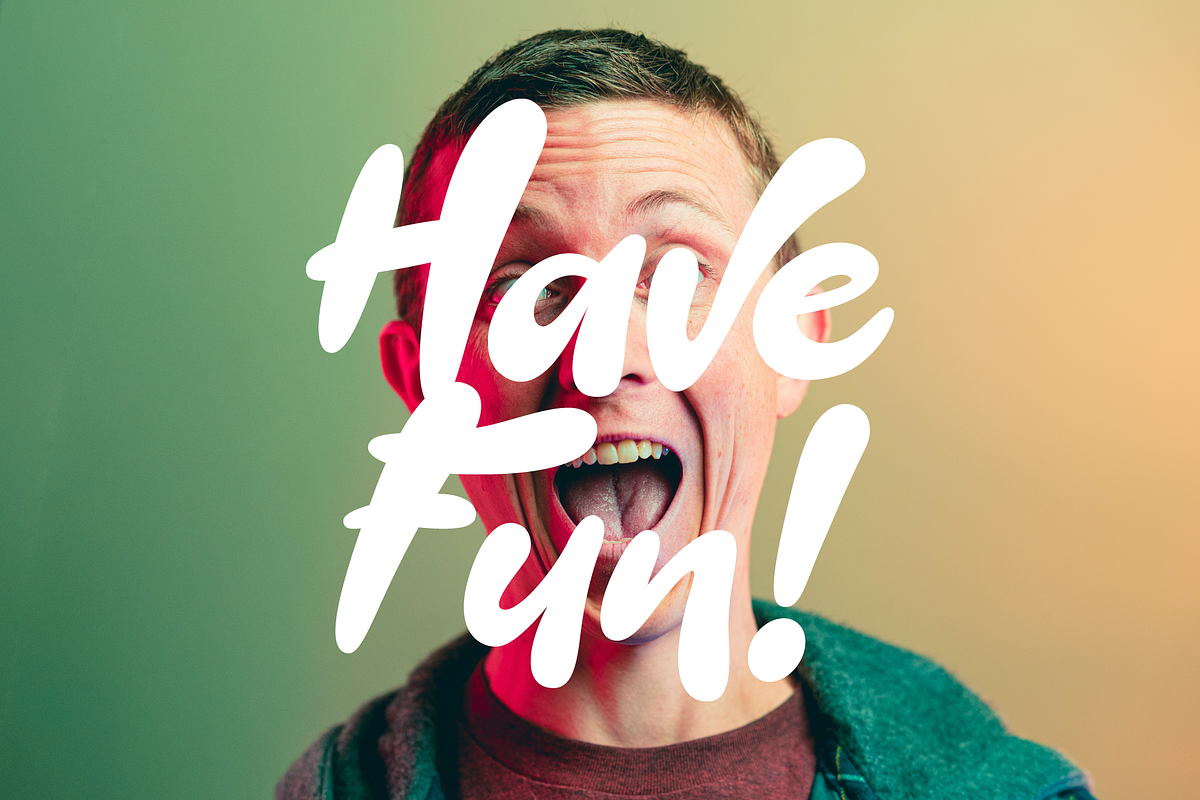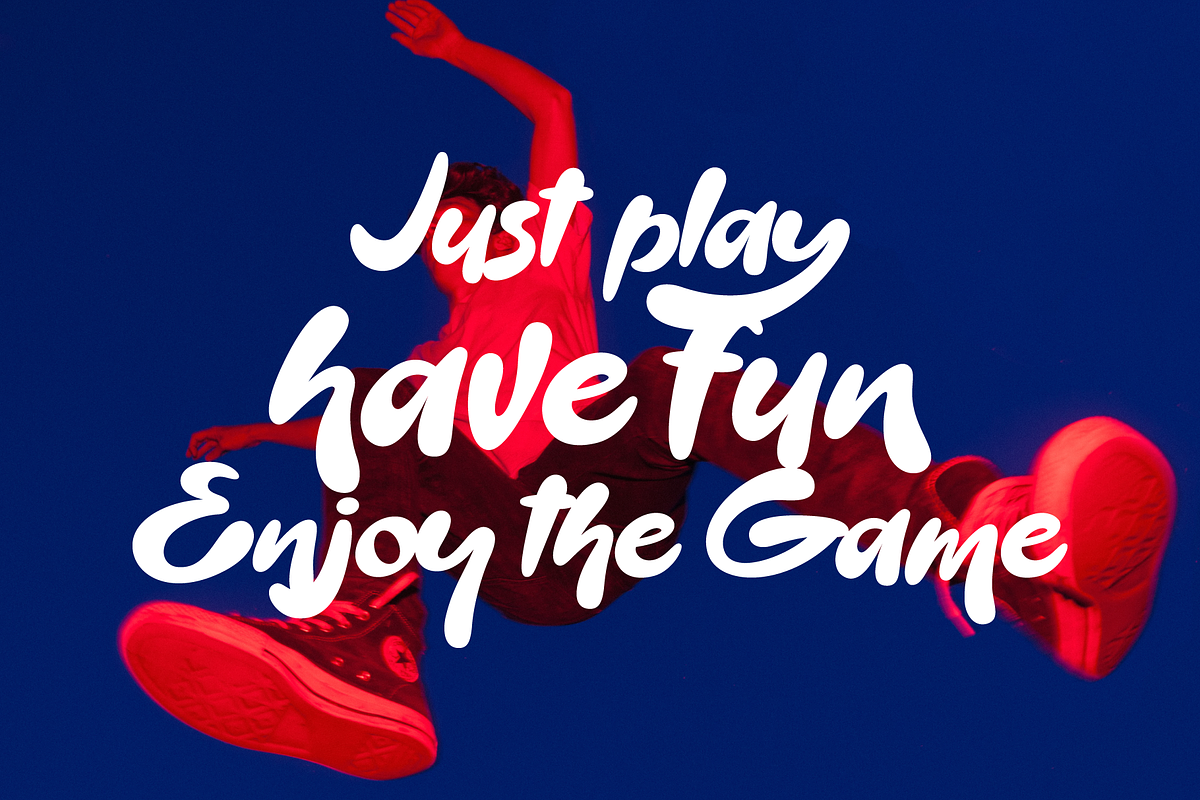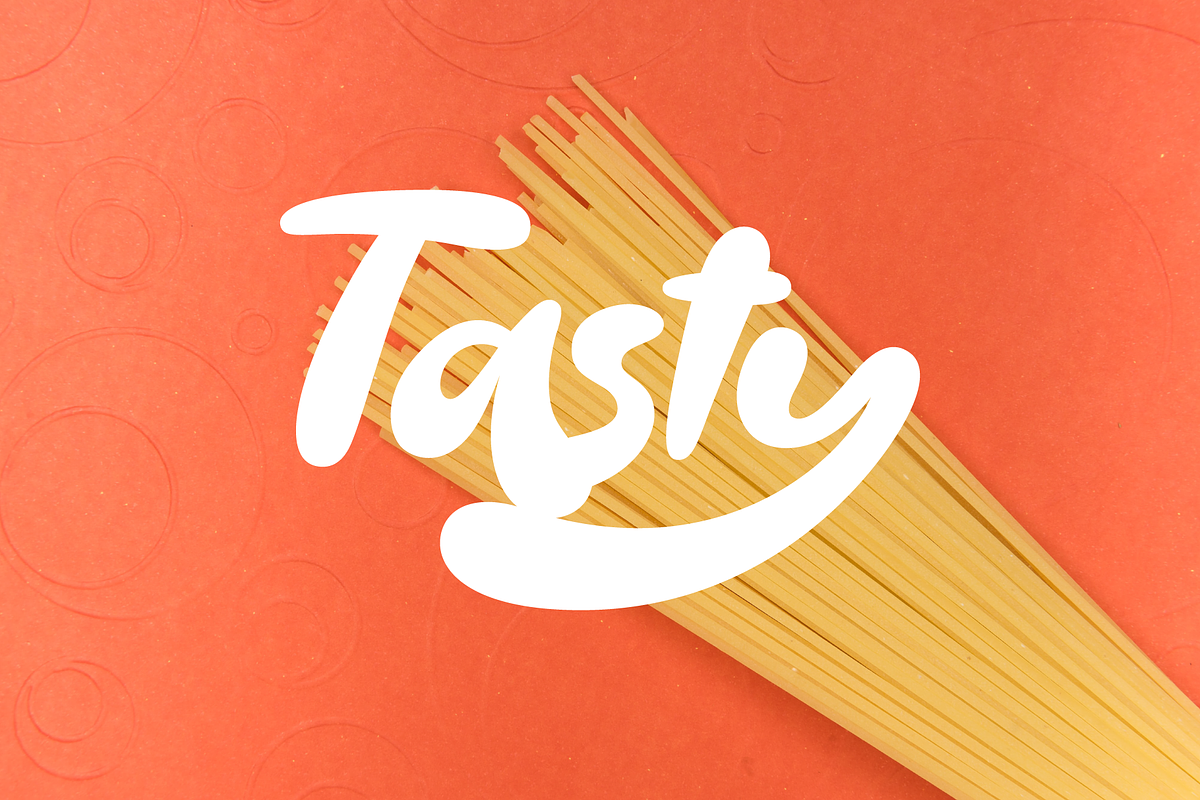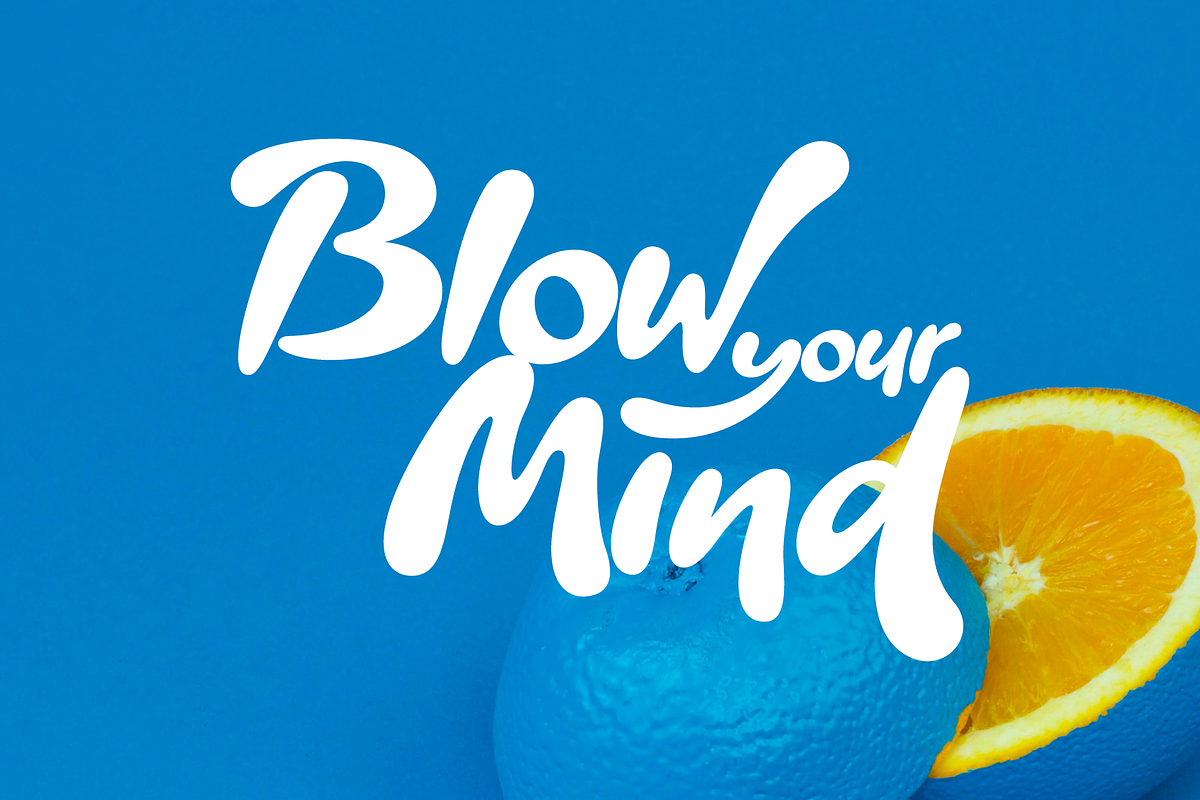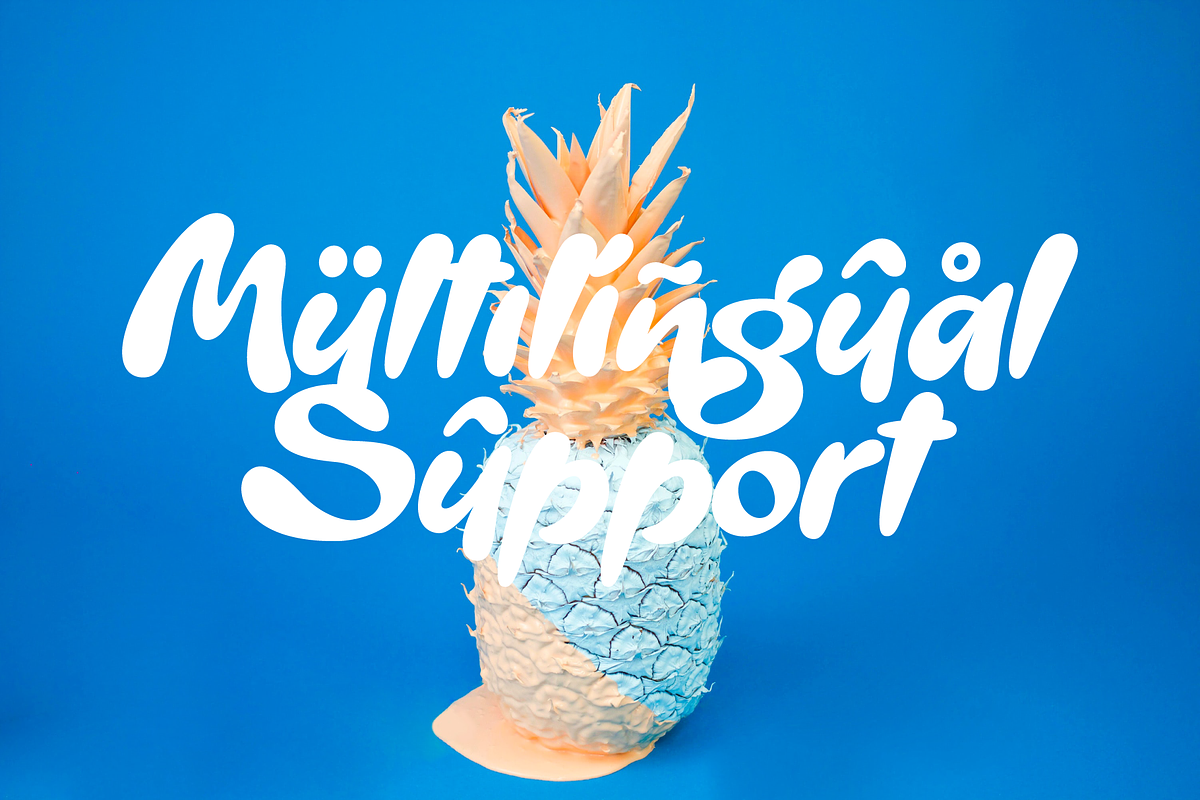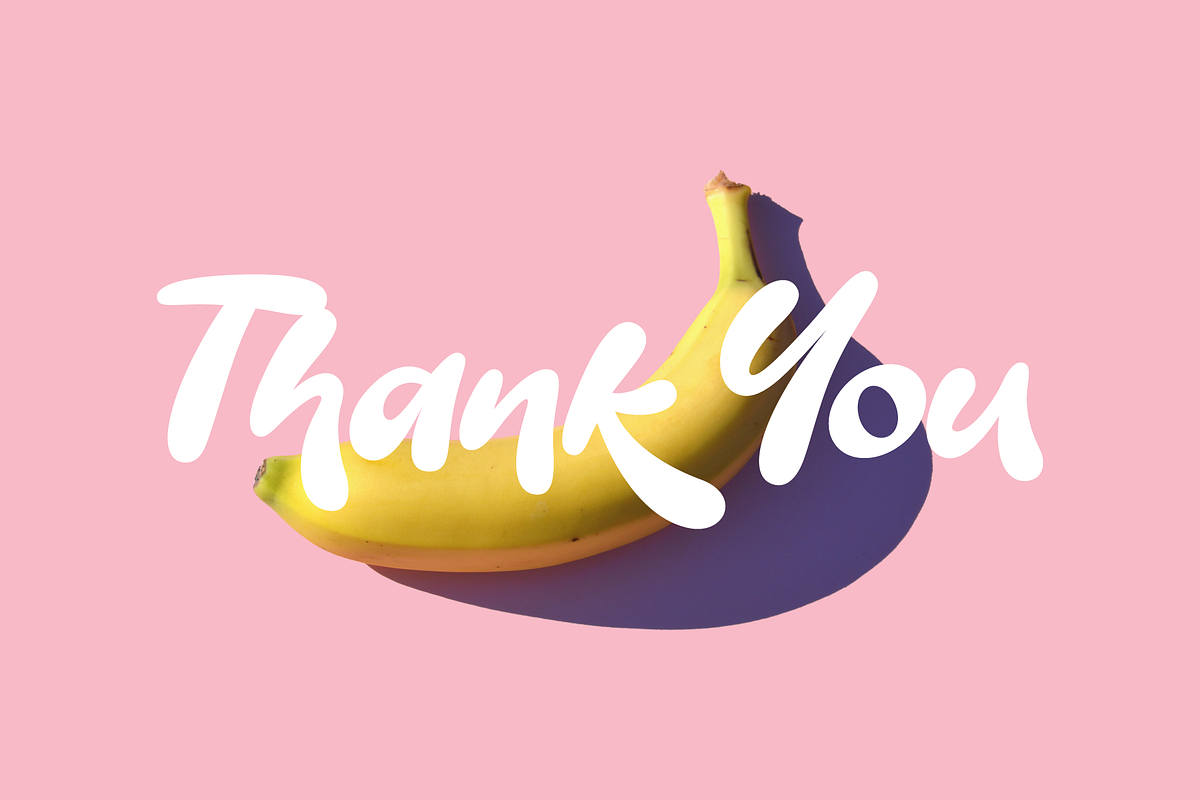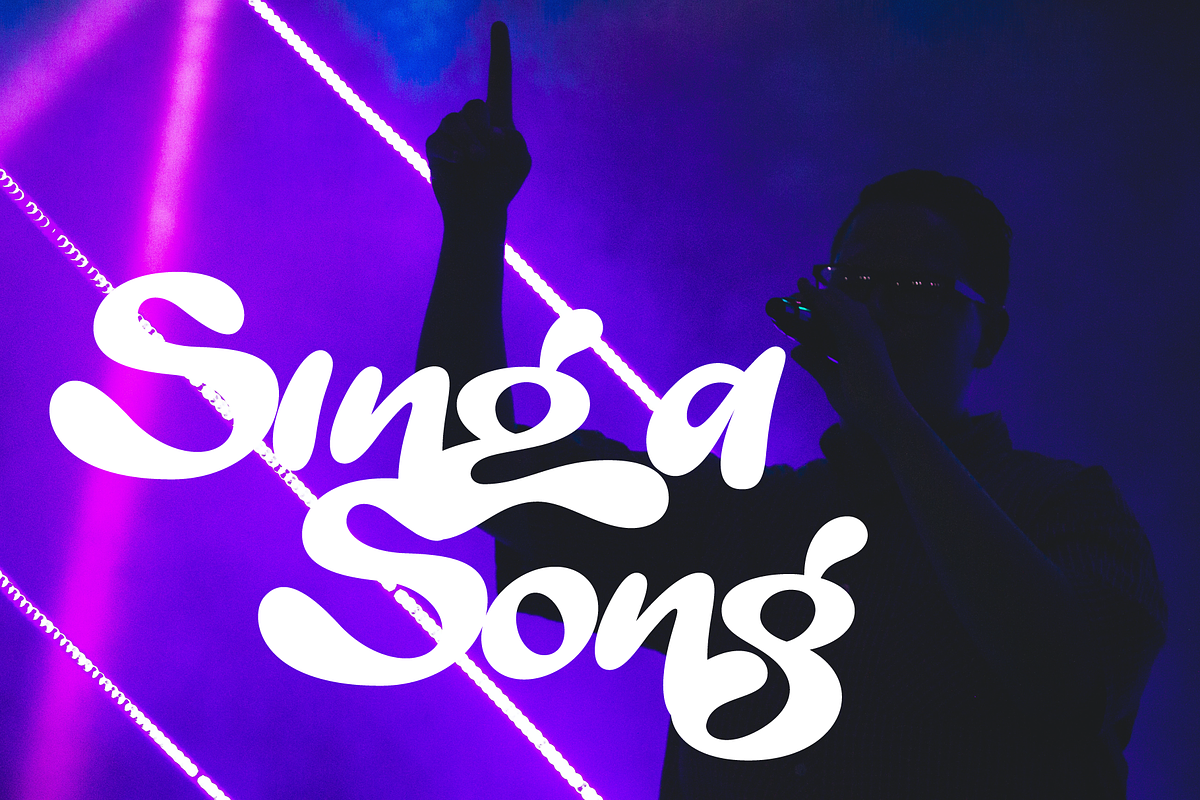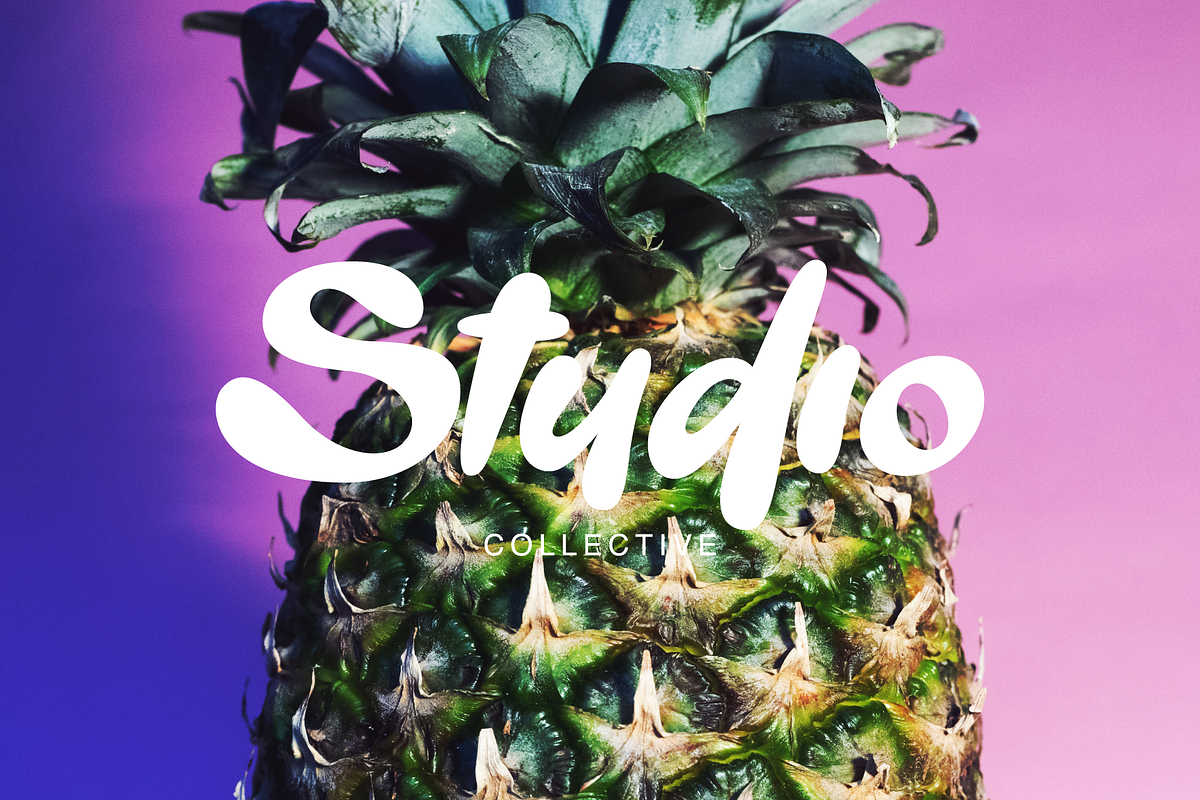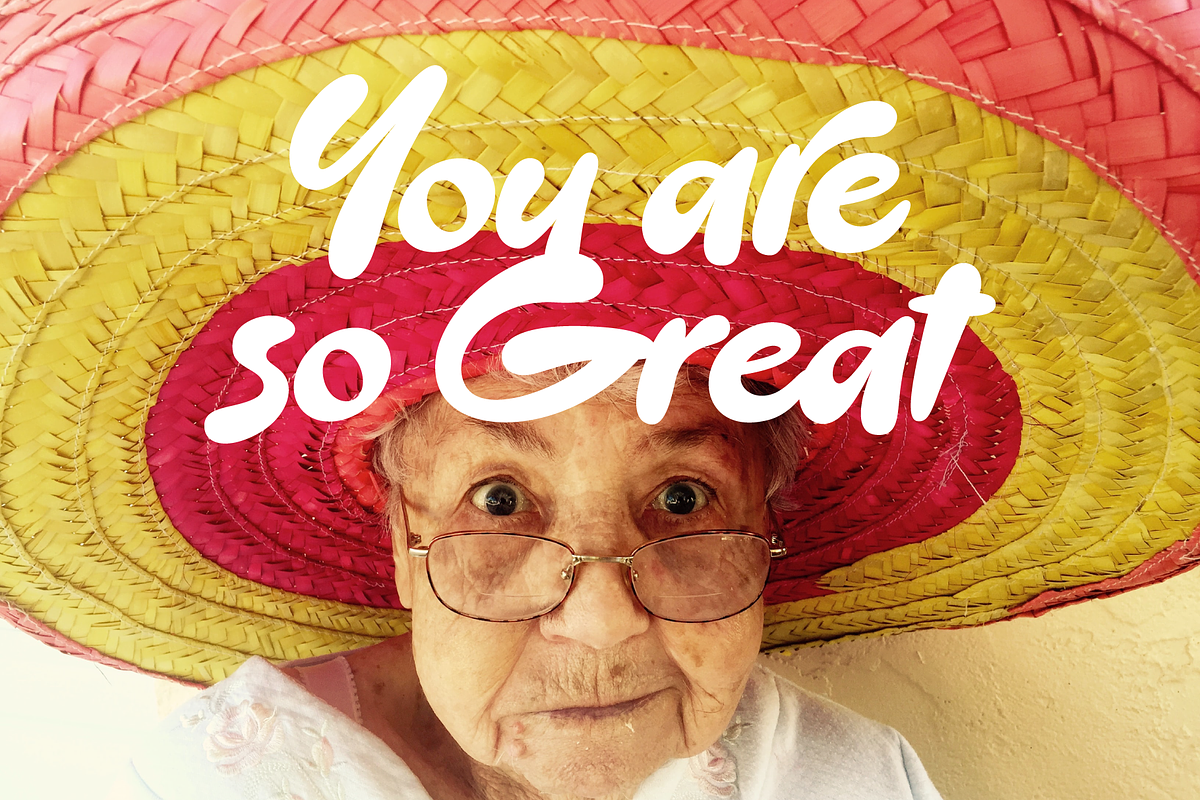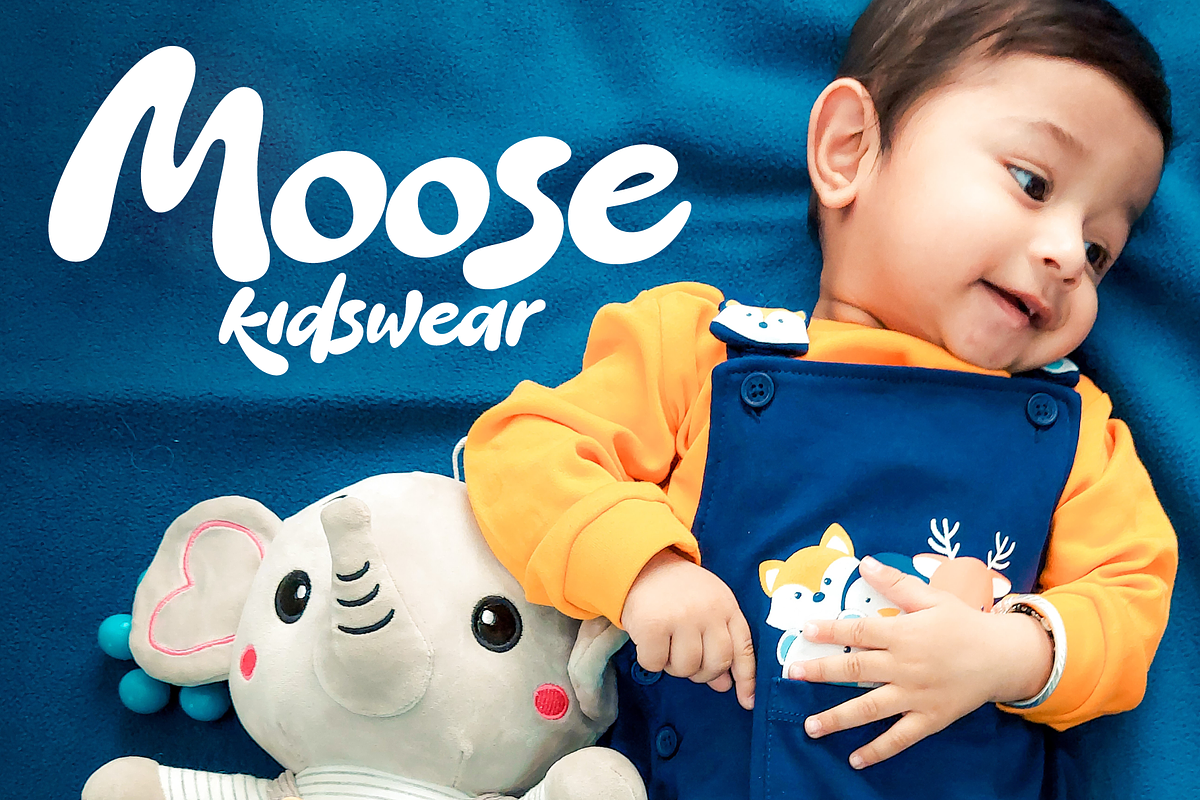
Milky - a Bright and Bubbly Font
Milky - a Bright and Bubbly Font by NendesKombet Std.
Milky, a bright and bubbly set of font that will enlighten your day! With its round and curvy shape, Milky is perfect to represent your brands or any of your work with a touch of fun. Equipped with alternates, Milky is ready to the fullest to be your cuteness army. Buy now or regret later!
Milku is also included full set of : Uppercase and Lowercase Letters
- Multilingual Symbols